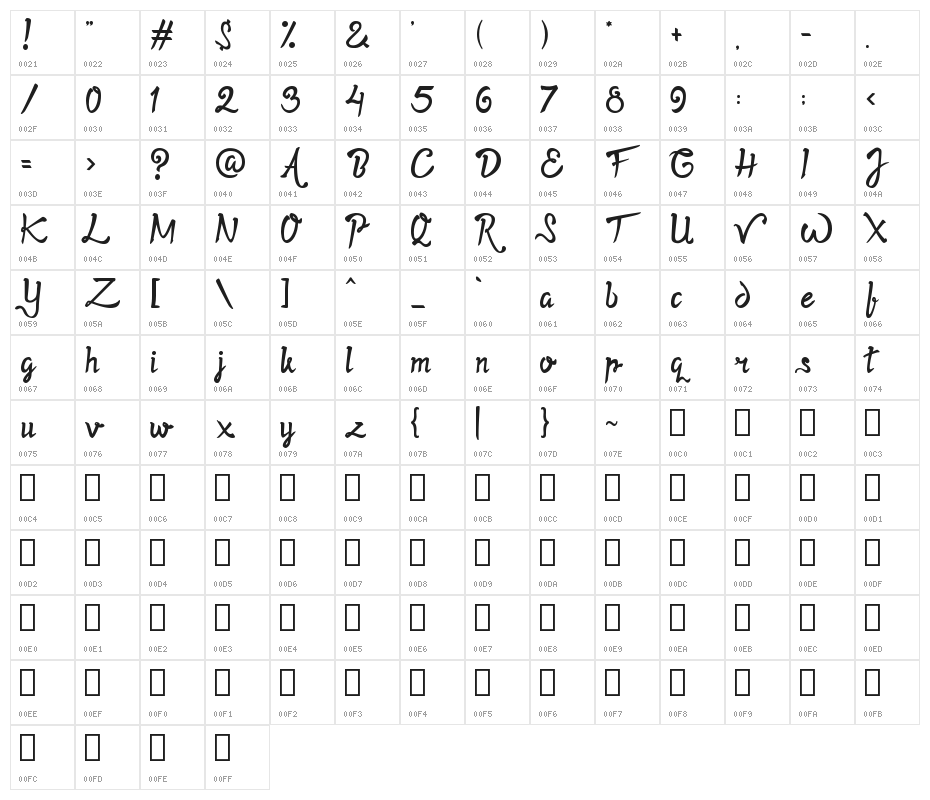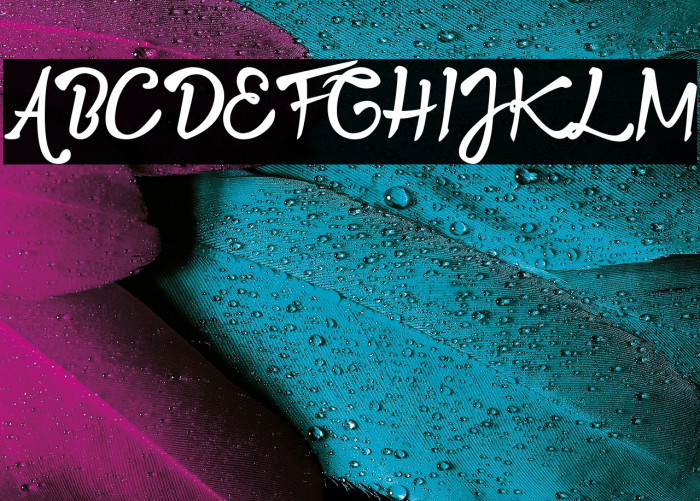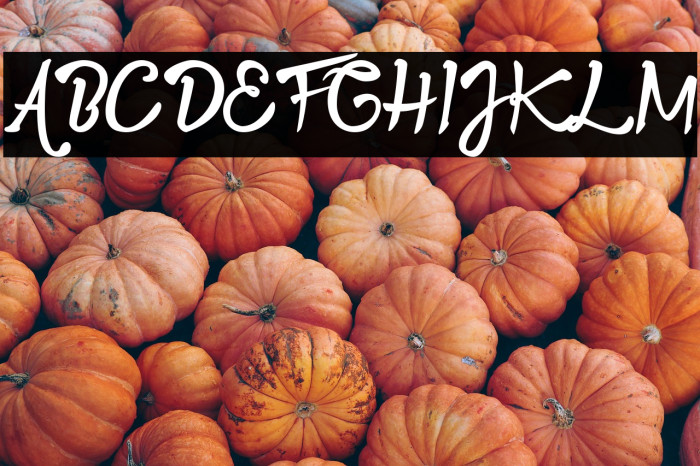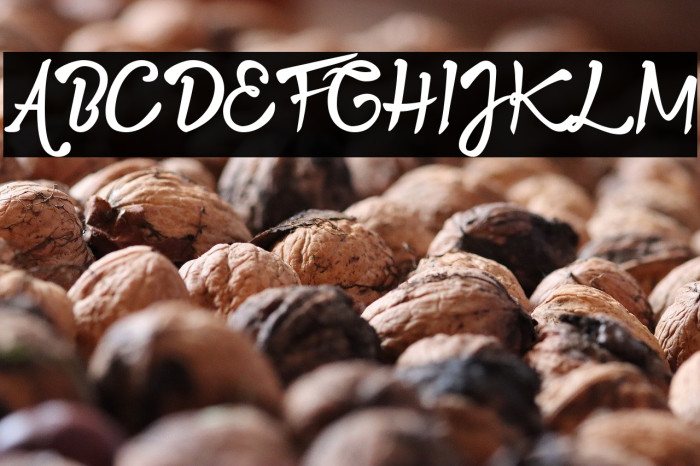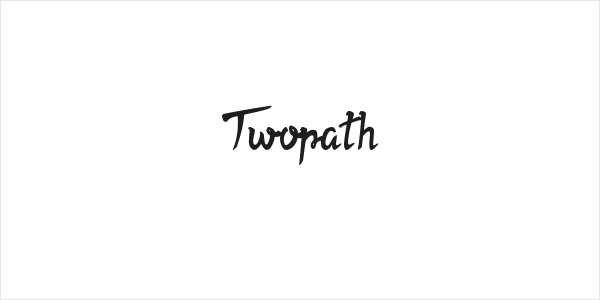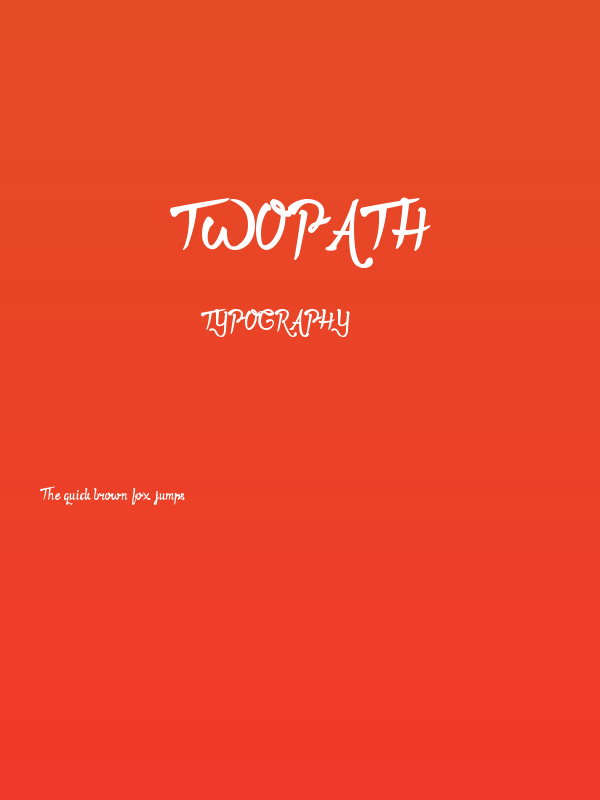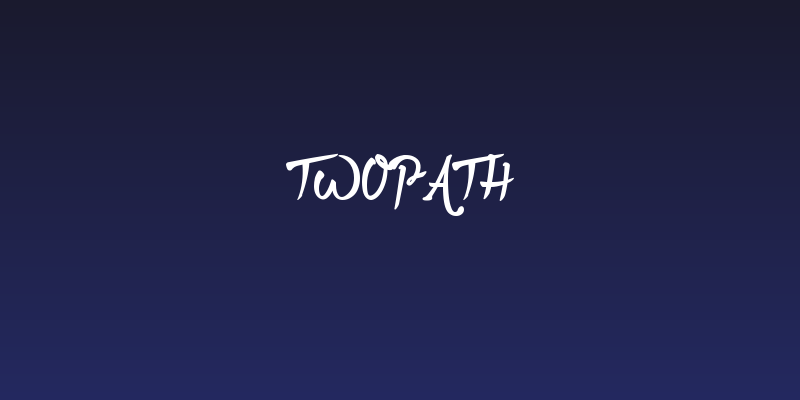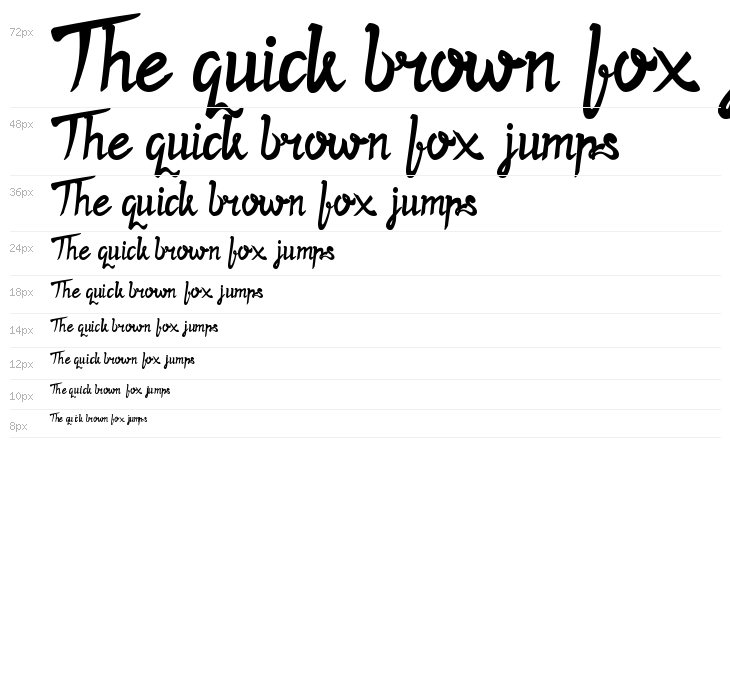
Twopath Font
Twopath Description
This font features a dynamic and flowing script style, characterized by its elegant and cursive letterforms. The uppercase letters exhibit a graceful, sweeping motion with varying stroke widths, adding a sense of movement and fluidity. The lowercase letters maintain a consistent style, complementing the uppercase with their smooth curves and loops. Numbers and special characters are designed to match the overall aesthetic, ensuring a cohesive look across all elements. The font's playful yet sophisticated appearance makes it suitable for creative and expressive design projects.